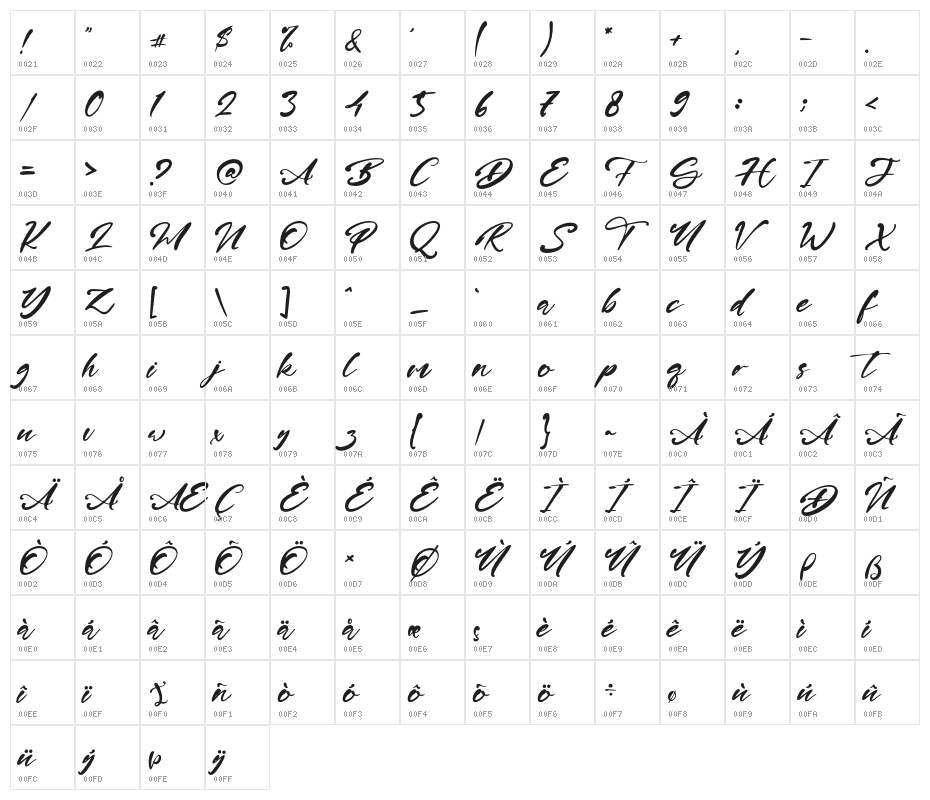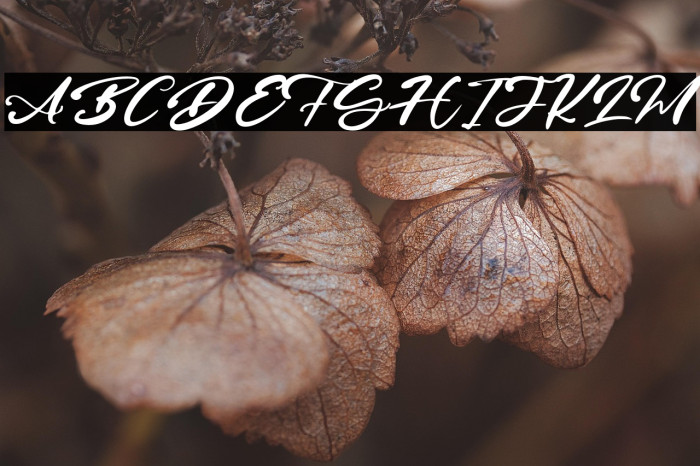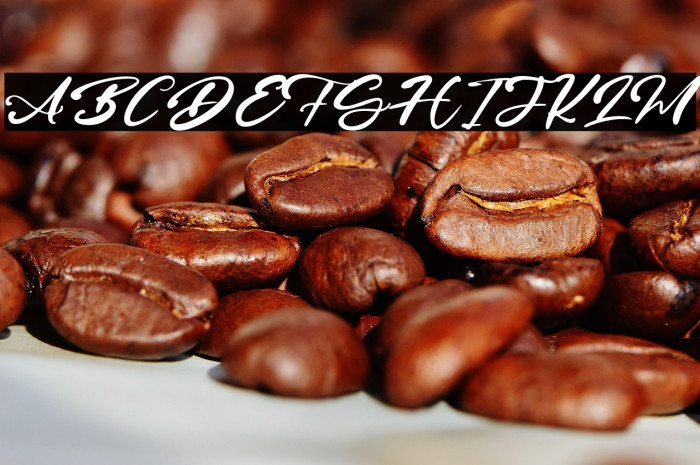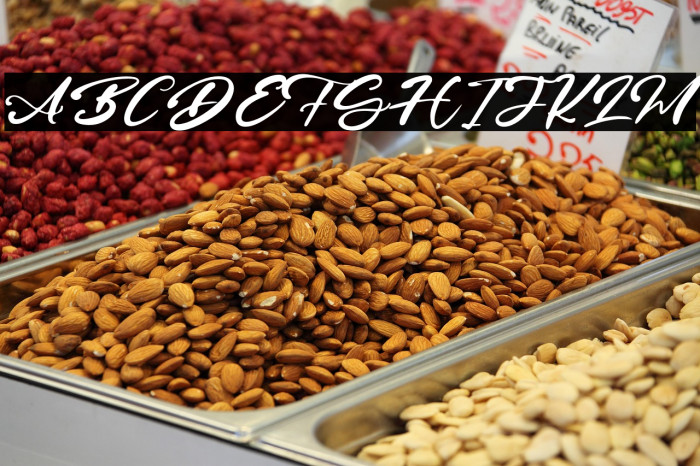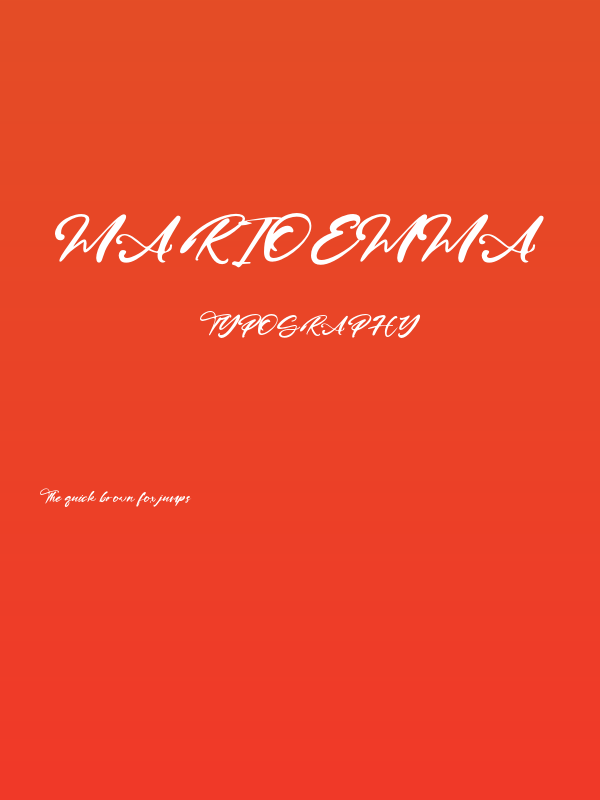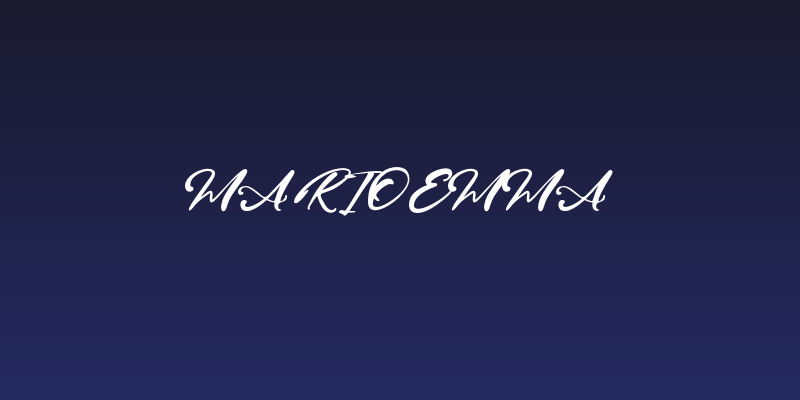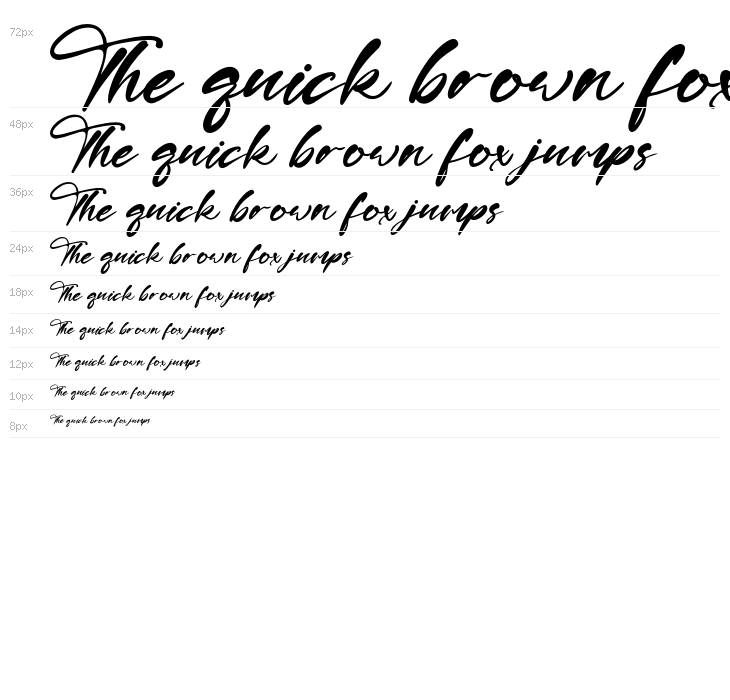
MarioEmma Font
MarioEmma Description
This font exudes a dynamic and fluid style, characterized by its cursive script with a bold presence. The letters are interconnected, creating a seamless flow that mimics natural handwriting. The uppercase letters are elegant and slightly elongated, while the lowercase letters maintain a consistent rhythm and balance. The numerals and special characters are designed to complement the overall aesthetic, maintaining the same fluidity and boldness. This font is perfect for projects that require a personal touch, such as invitations, greeting cards, or branding materials that aim to convey elegance and sophistication.
| Use Case | Logos, Invitations, Greeting Cards |
| Proposed Projects | Ideal for wedding invitations, personal branding, greeting cards, and elegant packaging designs. |